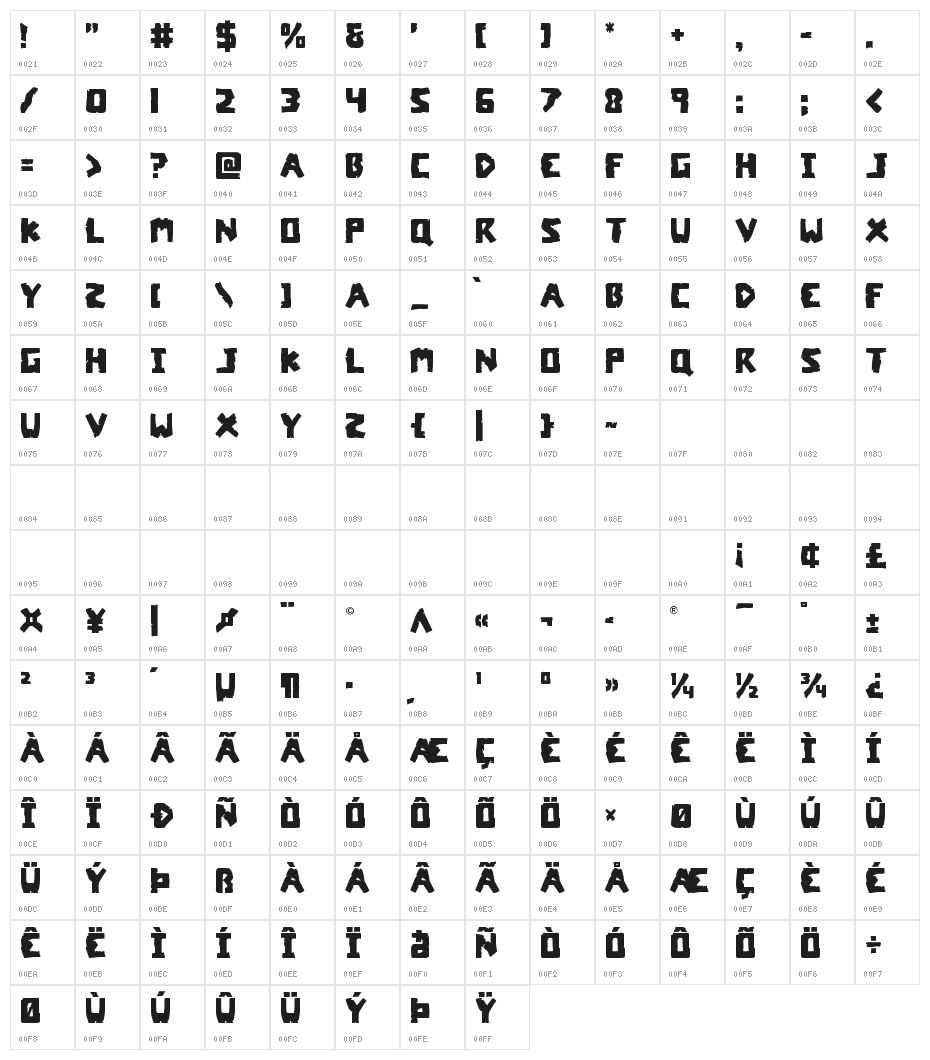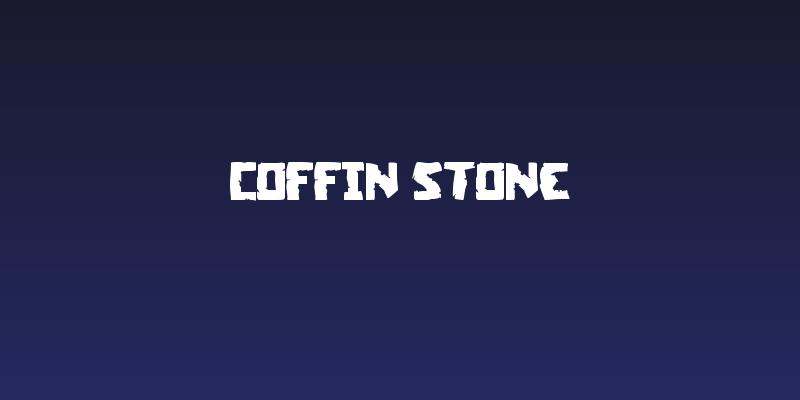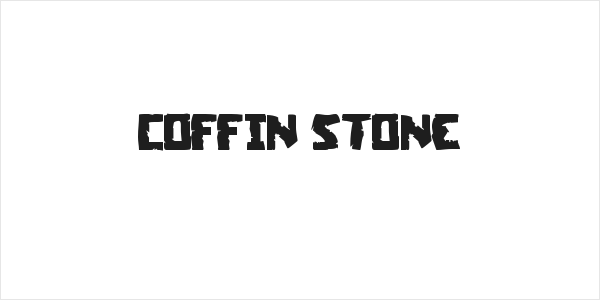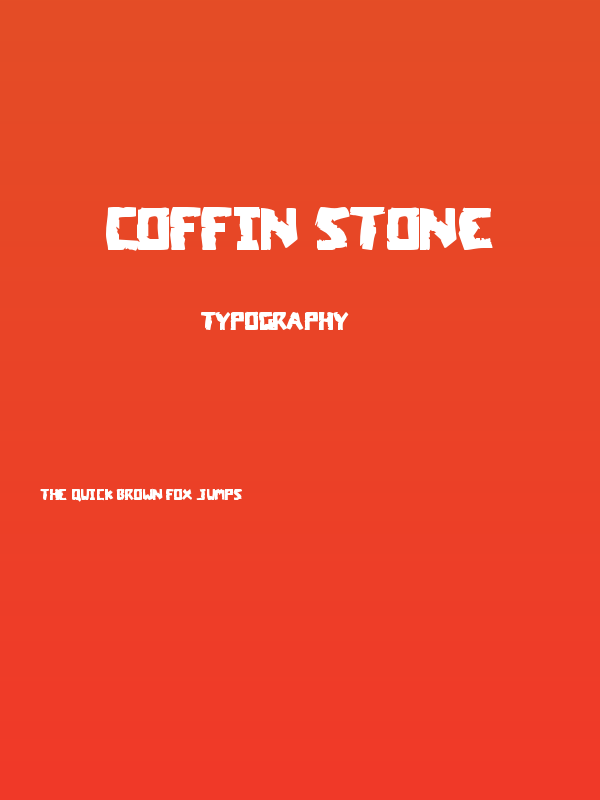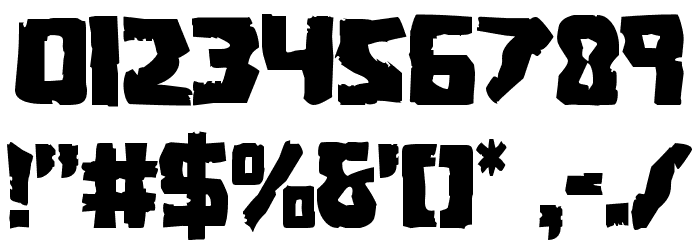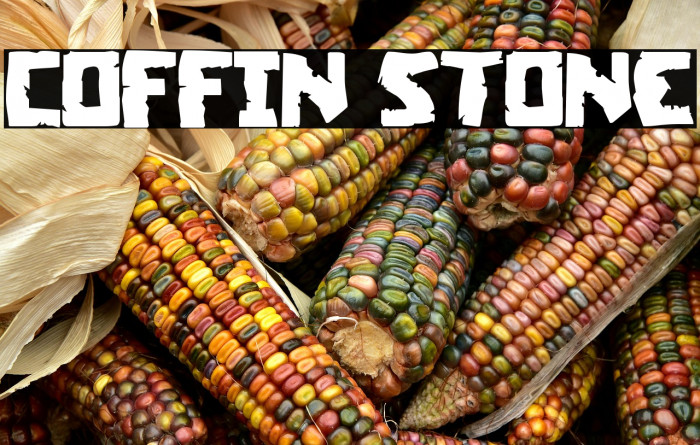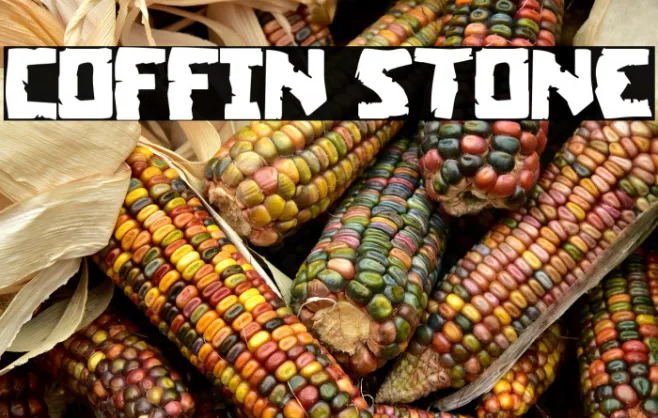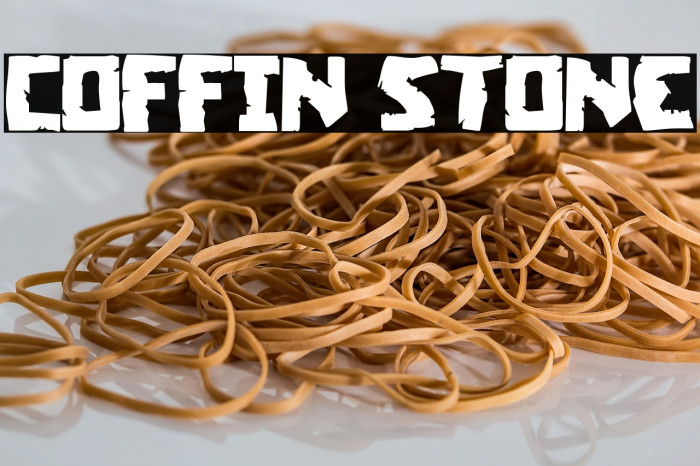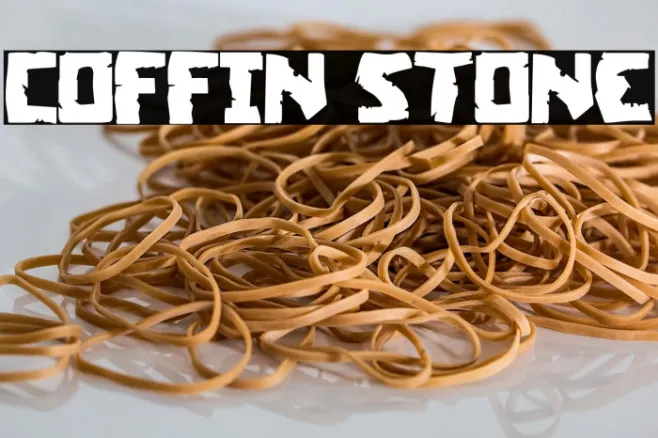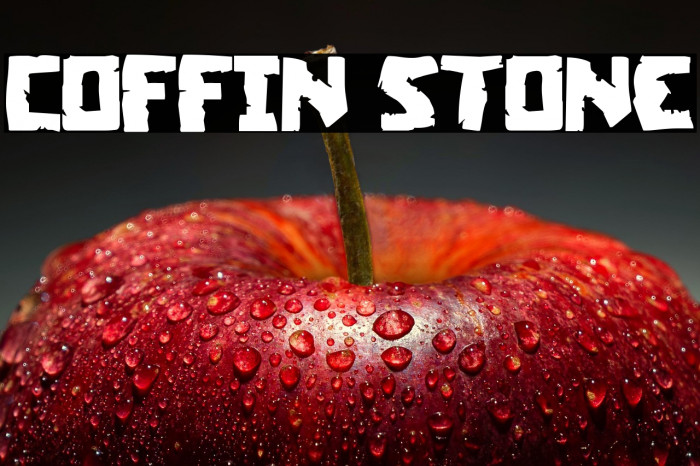
Coffin Stone Font
Coffin Stone Description
This font features a rugged, distressed style with uneven edges and a bold, impactful presence. The characters are designed to appear as if they have been carved or chipped away, giving them a raw, organic feel. The uppercase and lowercase letters maintain a consistent height, while the numbers and special characters follow the same rough aesthetic. This font's unique appearance makes it stand out, ideal for projects that require a strong, eye-catching typeface. The irregularities in the design add character and a sense of movement, making it suitable for creative and unconventional uses.
| Proposed Projects | Ideal for horror-themed designs, posters, album covers, and any project needing a bold, edgy look. |